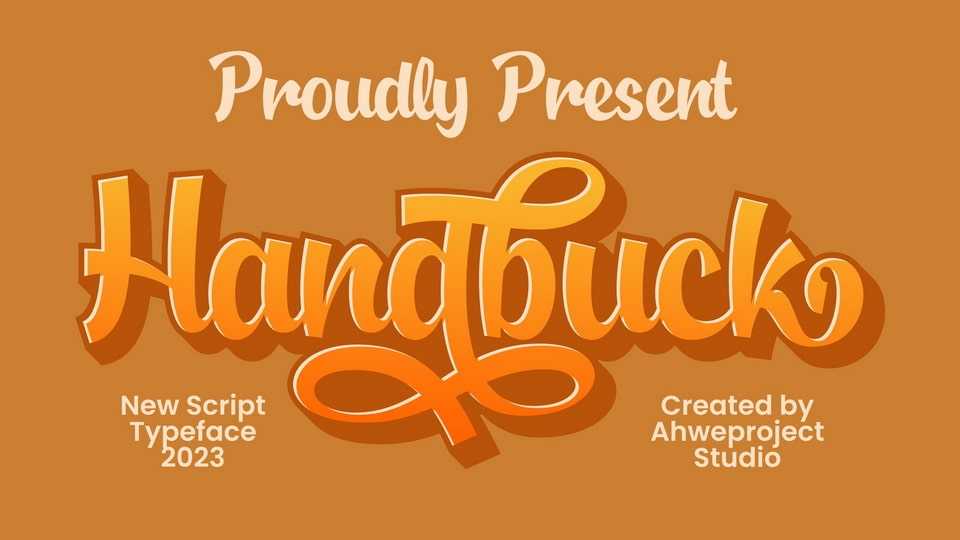
Download Handbuck font, a stunning display script typeface that seamlessly blends classic and modern design elements to create a unique and stylish typeface.